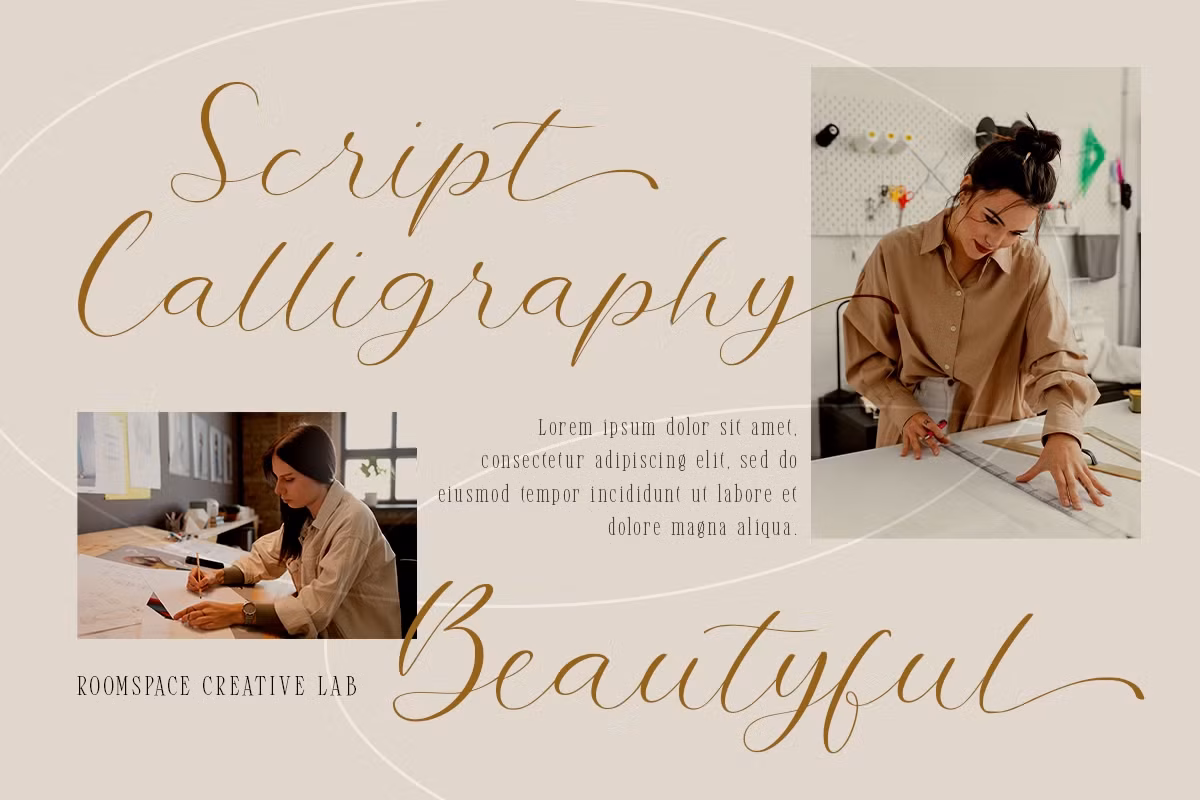
Mostpia - Elegant Handwritten Script Free Download
Mostpia Elegant Handwritten Script Font Free Download
Introducing Mostpia Elegant Handwritten Script Font Free Download, a sophisticated typeface characterized by its fluid, graceful strokes and charming curves. This font seamlessly blends classic calligraphic influences with a contemporary flair, making it highly legible and aesthetically pleasing. Ideal for branding, wedding invitations, logos, and editorial designs, Mostpia adds a touch of elegance and personalization to any project. Download Mostpia Elegant Handwritten Script Font Free Download to explore its features in personal projects. For commercial use, please ensure you purchase the appropriate license. Elevate your designs with the timeless beauty of Mostpia Elegant Handwritten Script Font Free Download